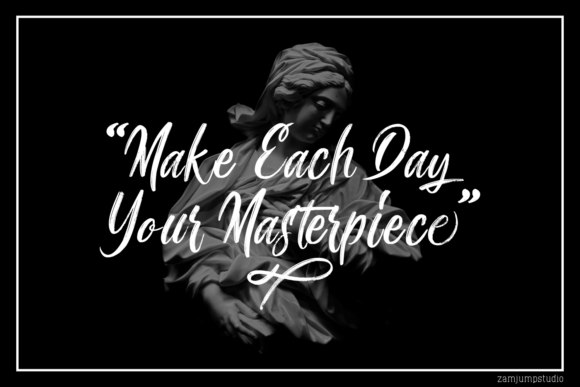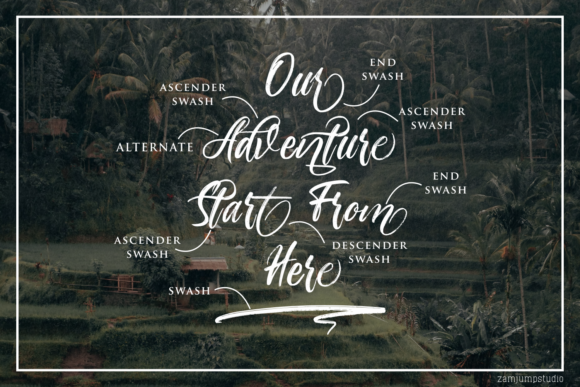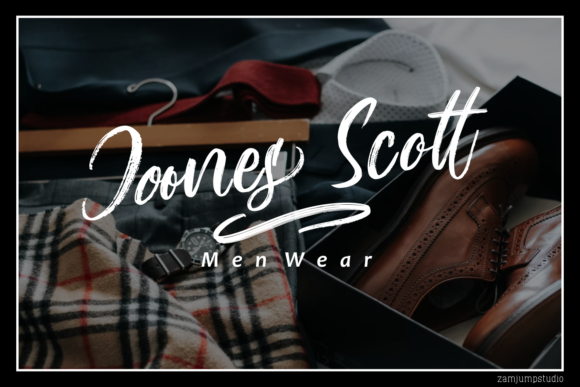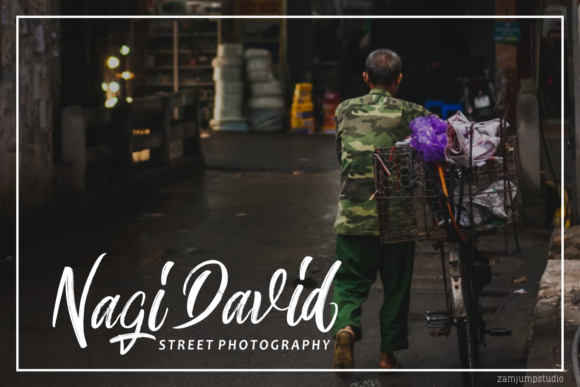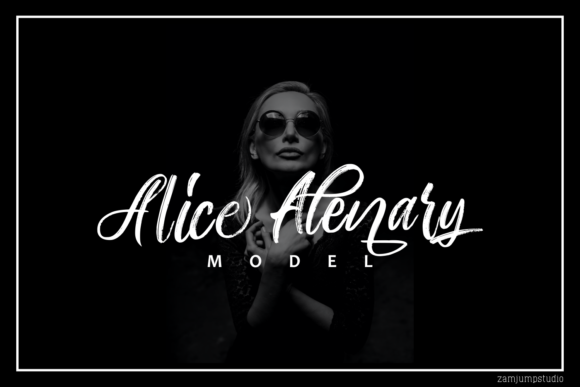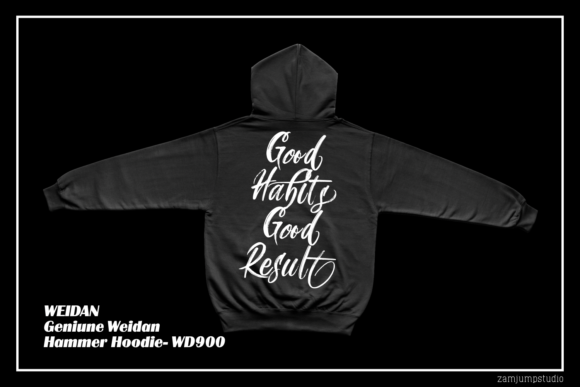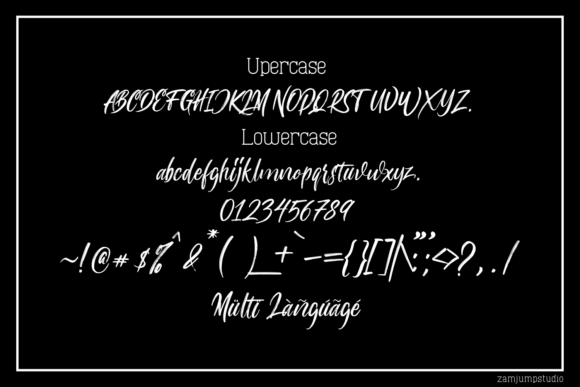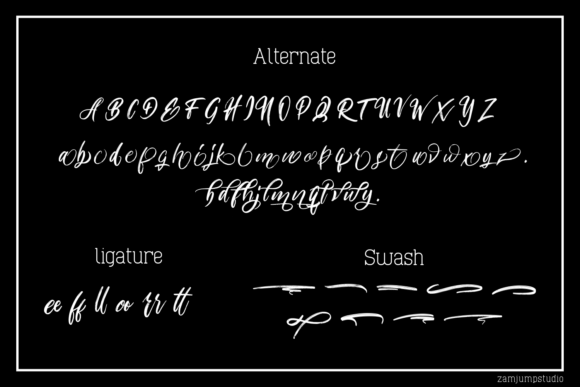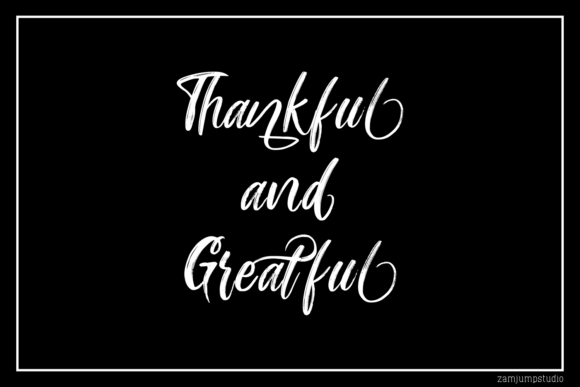
Billy Stranger Font
About Billy Stranger Font
Billy Stranger is a charming brush-styled handwritten font. Use this font for with your designs and explore its endless possibilities.